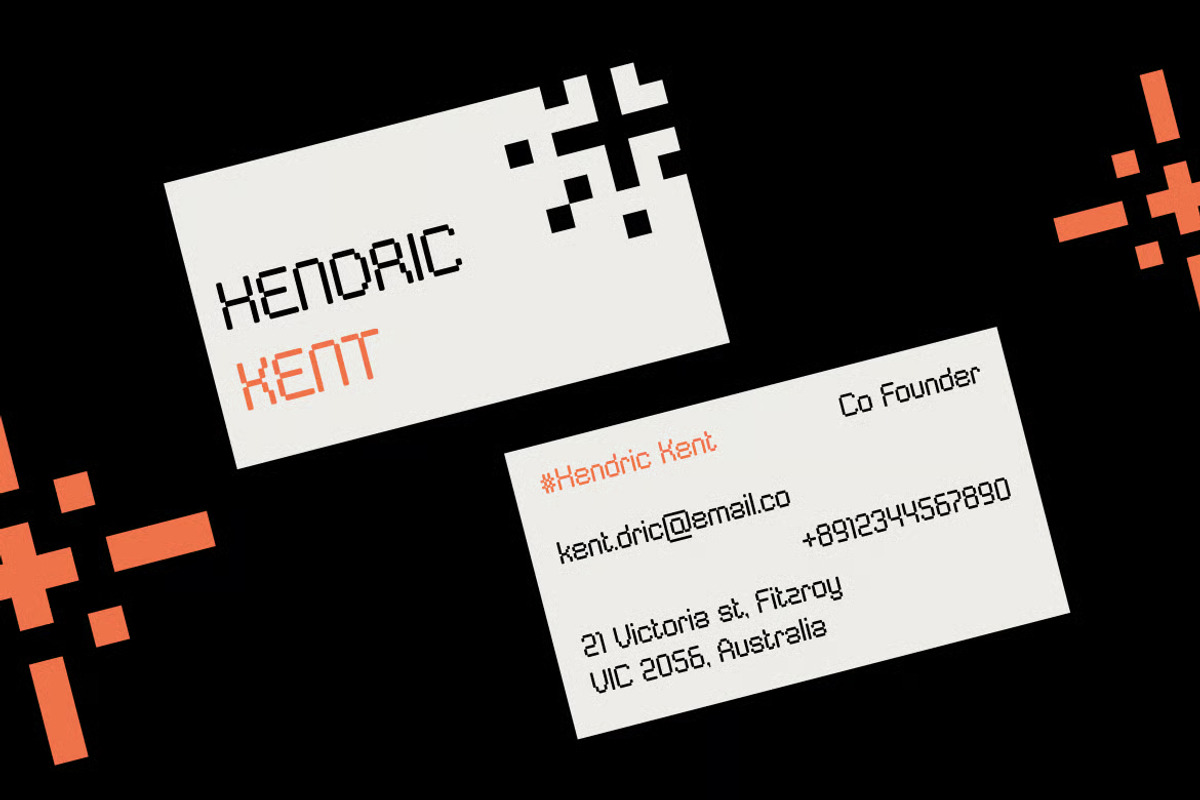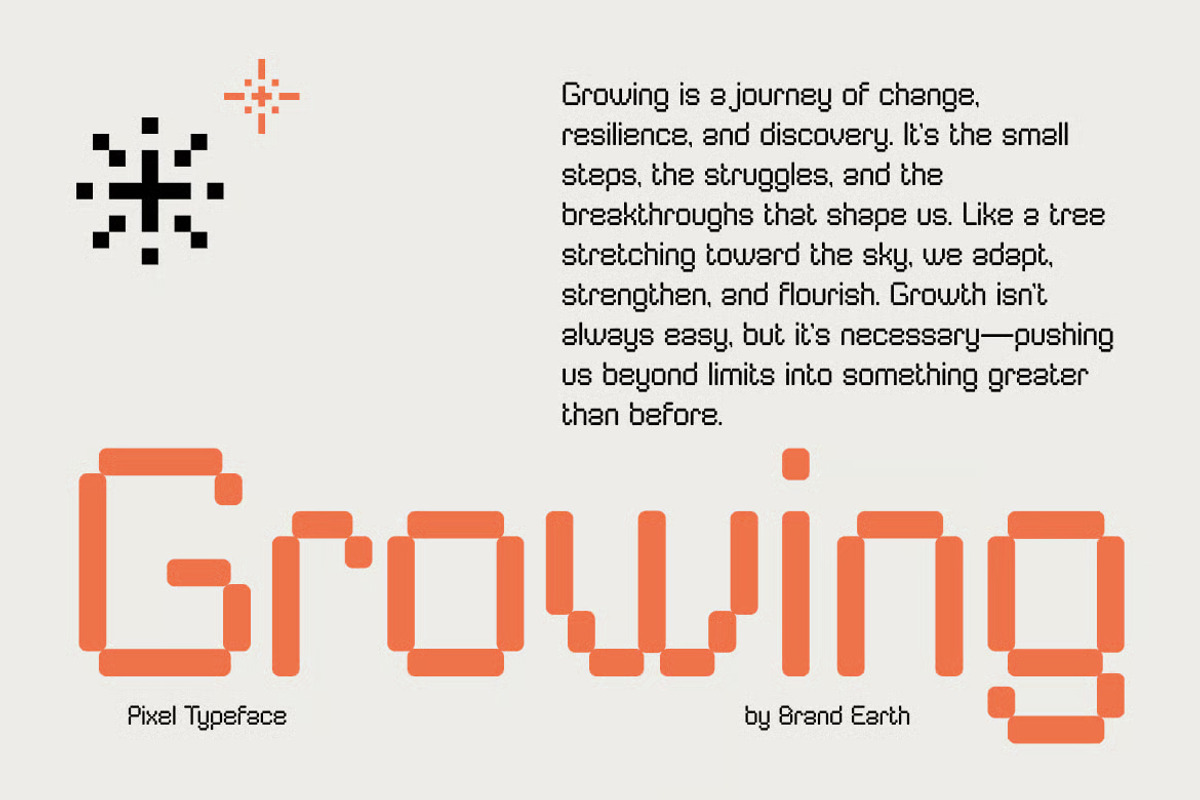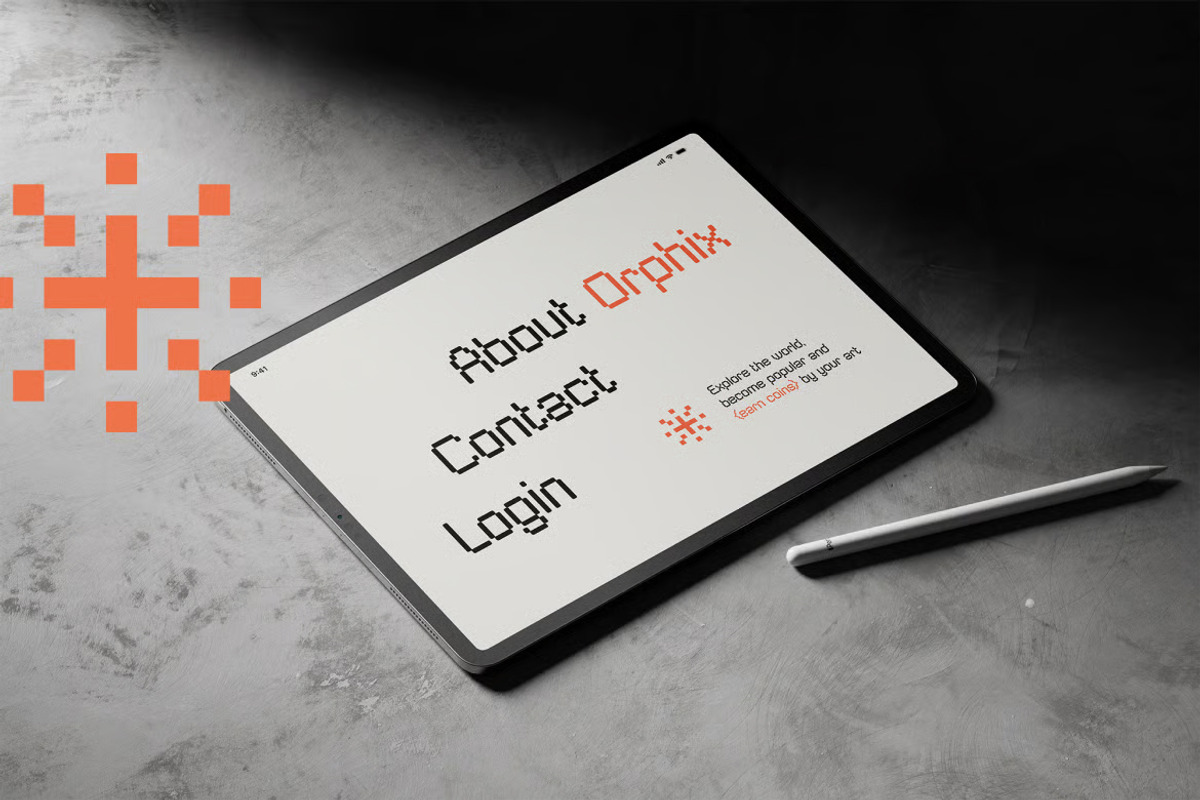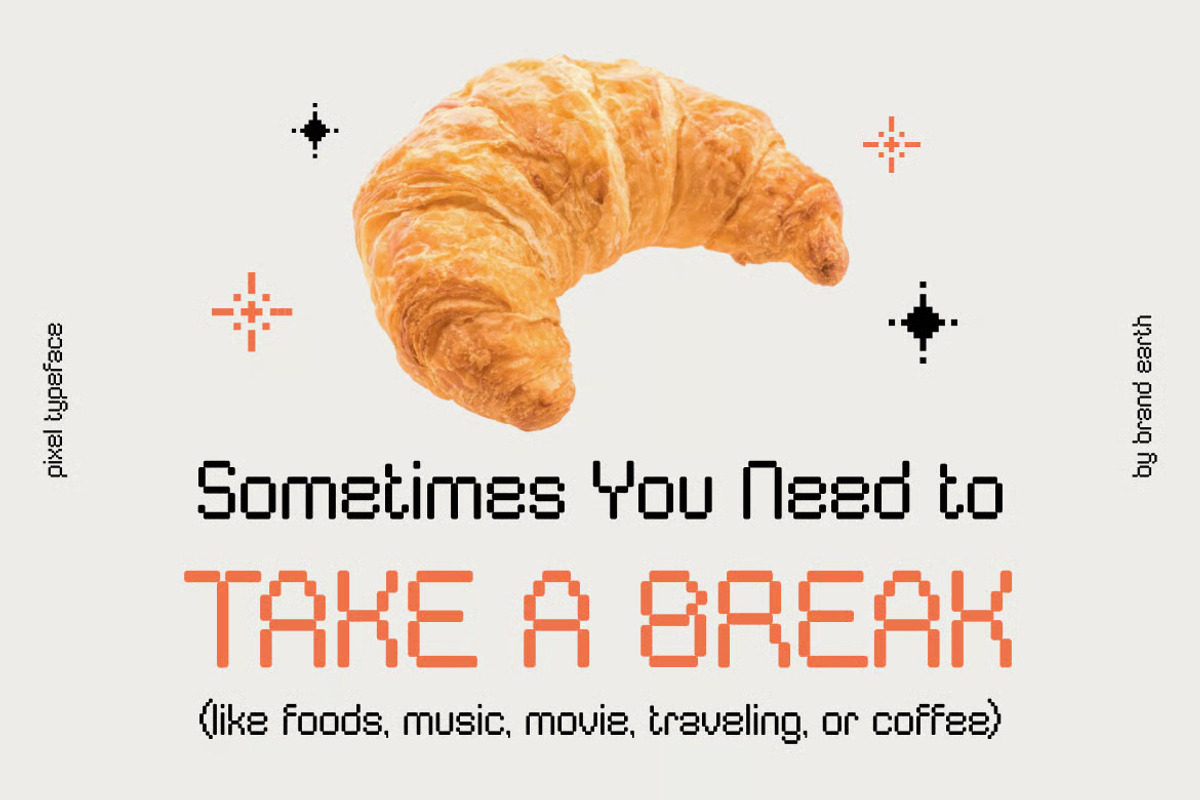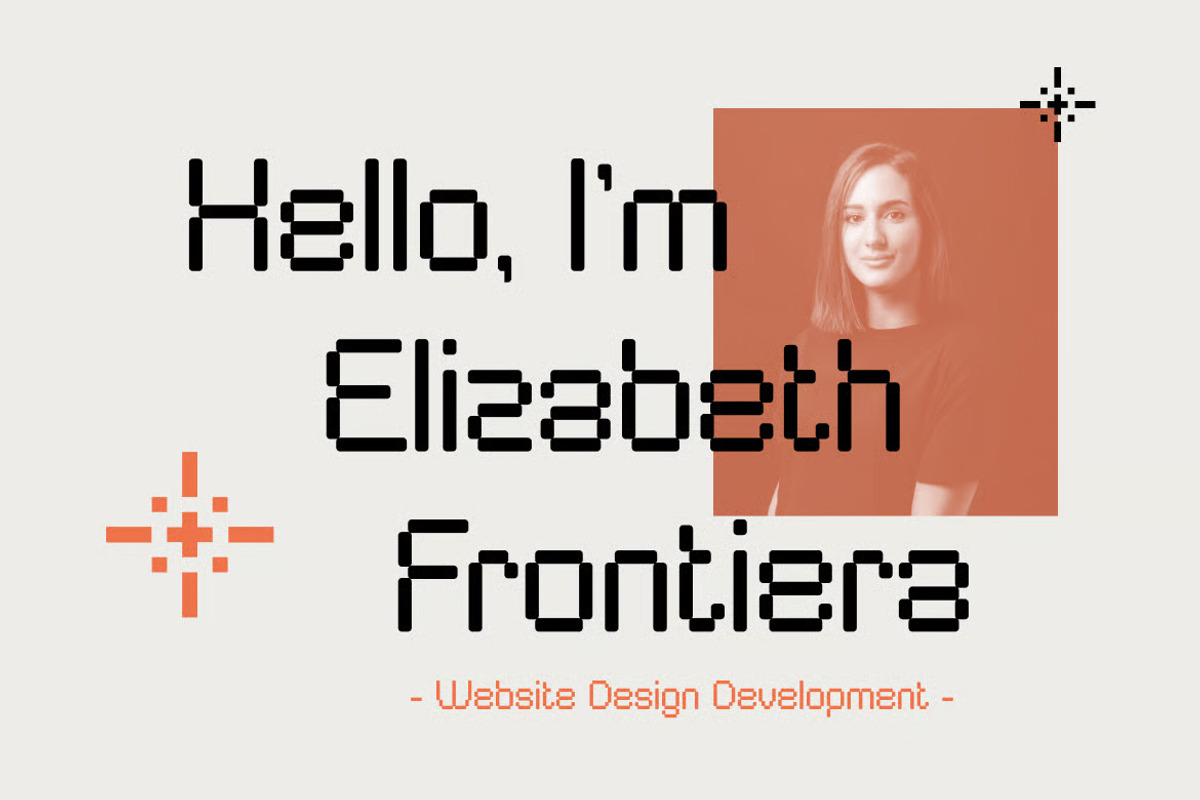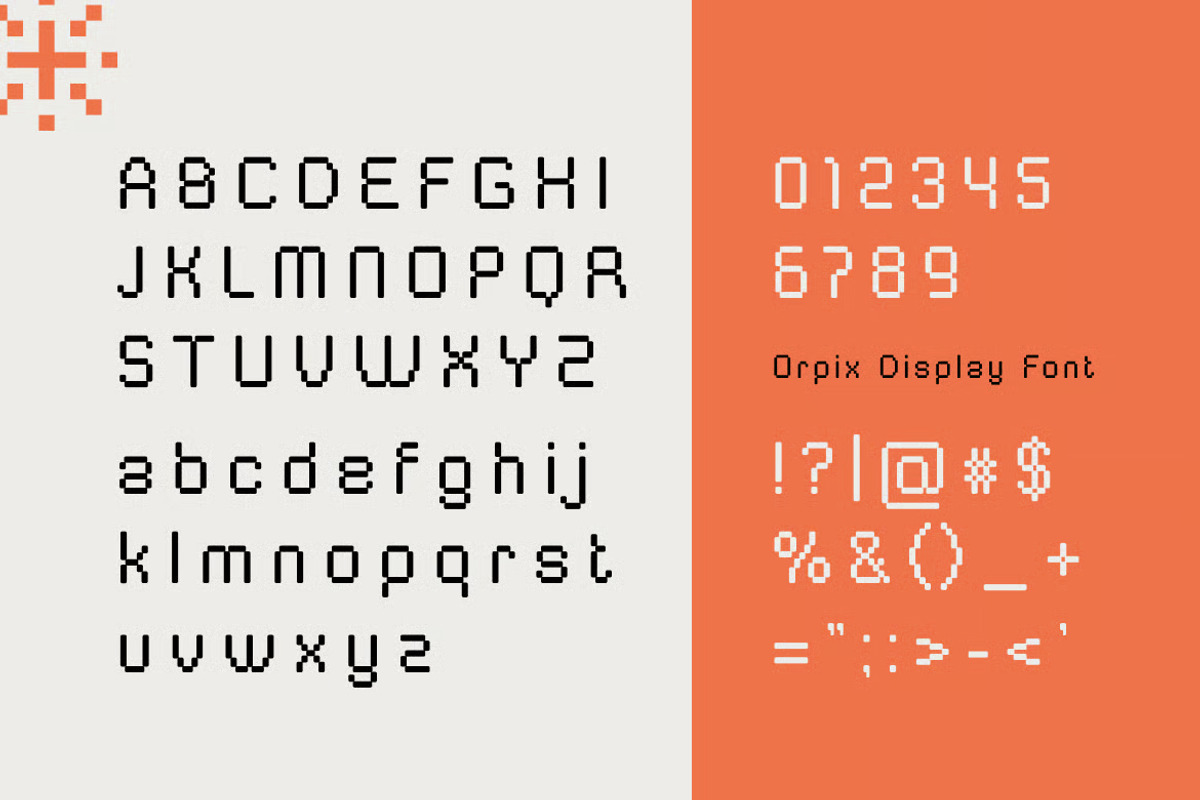
Orpix – Modern Pixel Display Font
Orpix is a pixel-inspired display typeface that fuses retro gaming nostalgia with a modern modular grid design. Built for the digital era of tech branding and playful interfaces, it captures a sense of nostalgia, precision, and digital charm in every letterform. Its tech-savvy and approachable style makes it a great choice for technology brands, NFT branding, pixel art projects, and experimental editorial layouts.
The letterforms in Orpix are crafted with rounded square strokes and a consistent modular rhythm that gives the typeface a smooth and digital presence. It features a grid-based visual identity that is perfect for UI/UX design, digital posters, arcade-themed visuals, and gaming overlays.
With its friendly presence and LED-inspired styling, Orpix bridges the gap between retro gaming nostalgia and modern digital design. It provides strong visual impact while remaining legible, making it ideal for educational games, modern retro packaging, pixel animation titles, and experimental digital layouts.
Uppercase & Lowercase characters
Numeral & Punctuations
Suitable For: tech logo design, NFT branding, UI/UX, digital posters, arcade-themed visuals, gaming overlays, experimental layouts, educational games, modern retro packaging, pixel animation titles, and modular typography projects.